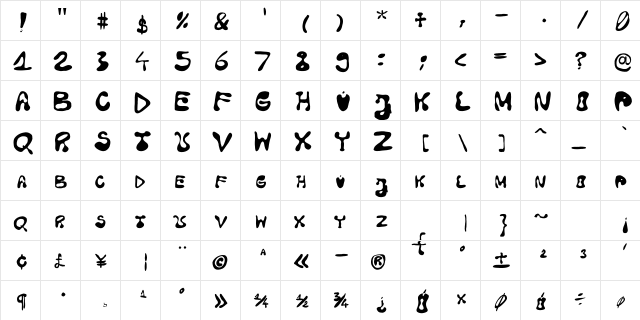
Pismak Regular
Design Context for Pismak Typeface
Pismak is a composed and adaptable typeface that performs quietly and consistently across a wide range of design contexts.